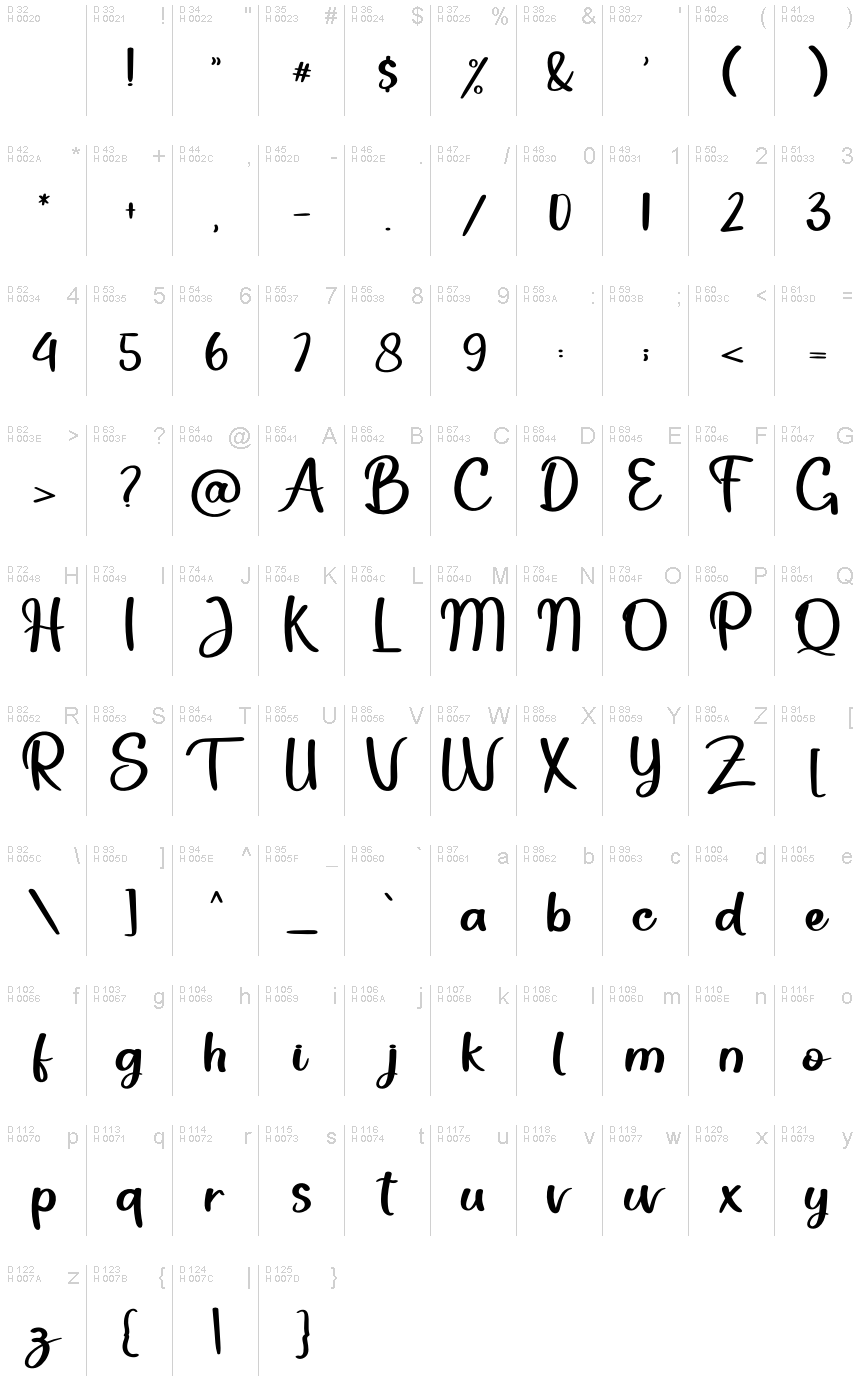
My Family
My Family, designed by Etik Fatimah, exudes a warm and personal touch with its handwritten style that appears to flow effortlessly across the page. The font radiates a cozy, inviting charm, reminiscent of a note penned by a loved one. Its gentle curves and varying strokes convey authenticity and individuality, making it an ideal choice for projects that require a bespoke feel.
The aesthetic appeal of My Family lies in its ability to emulate human touch within its letters-perfect for invitations, greeting cards, and personal branding. This font's casual elegance ensures it is versatile enough for both digital platforms and print materials where a touch of personal connection is sought after.